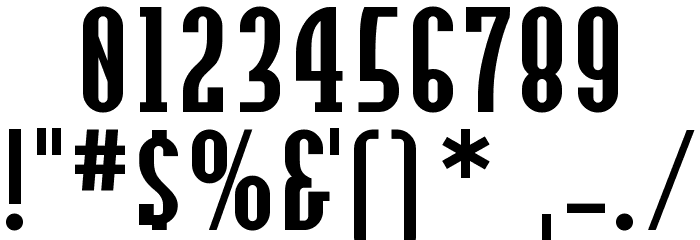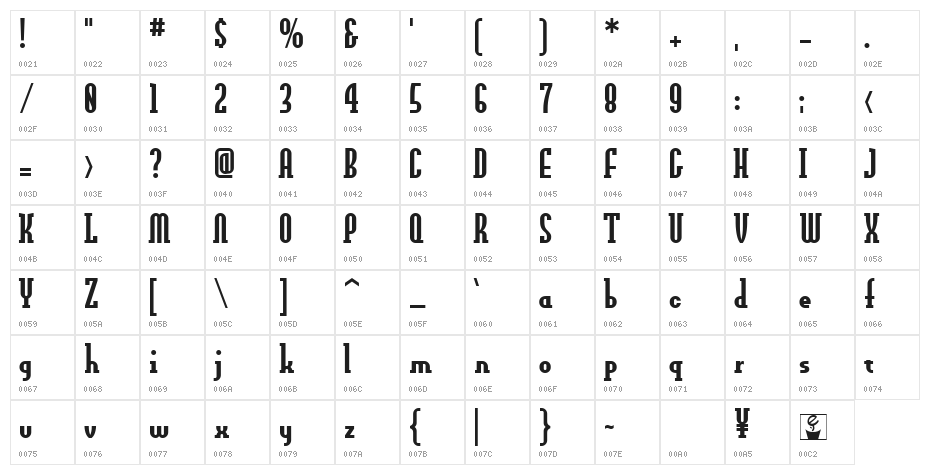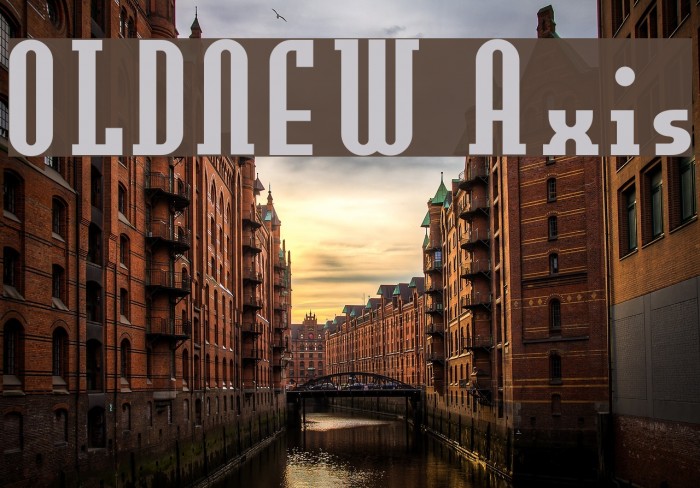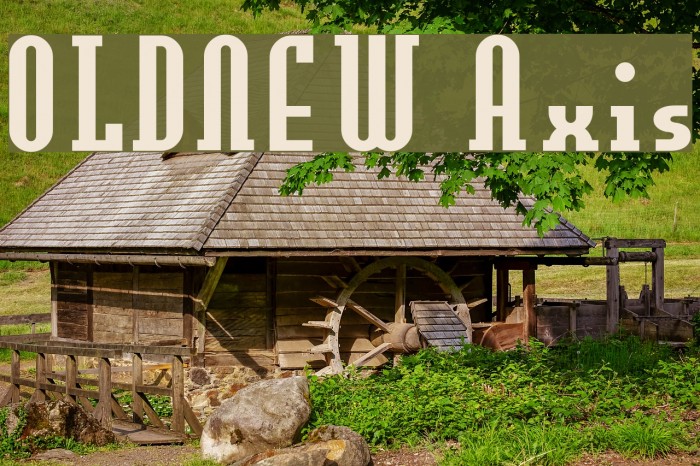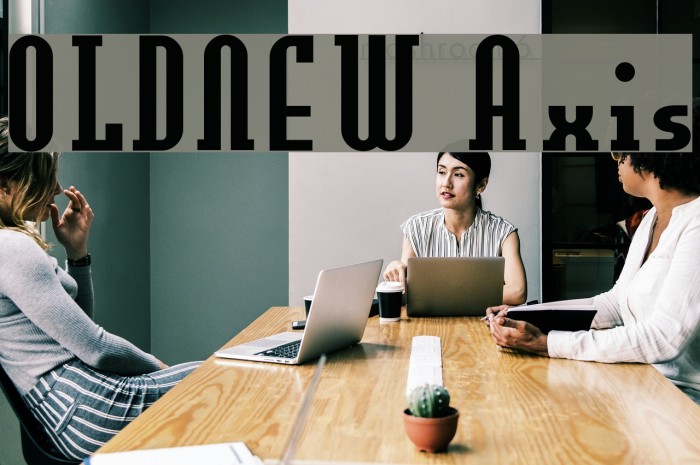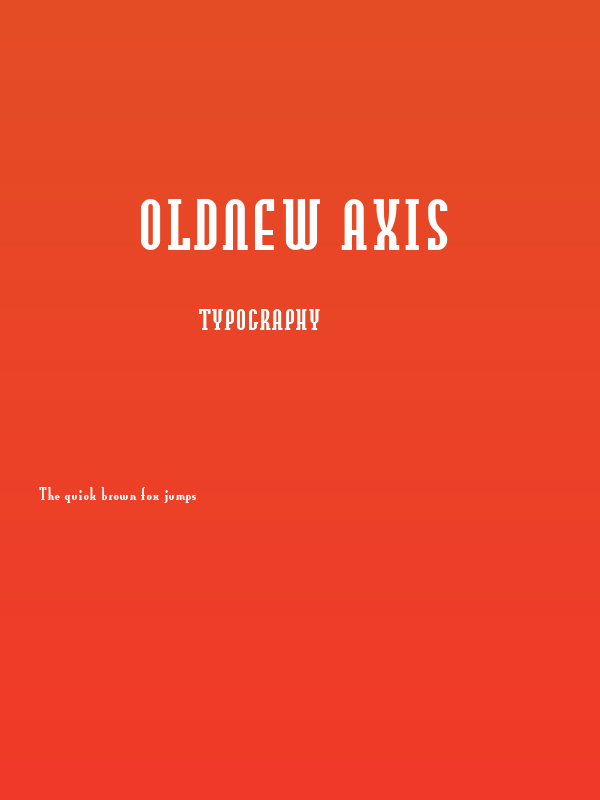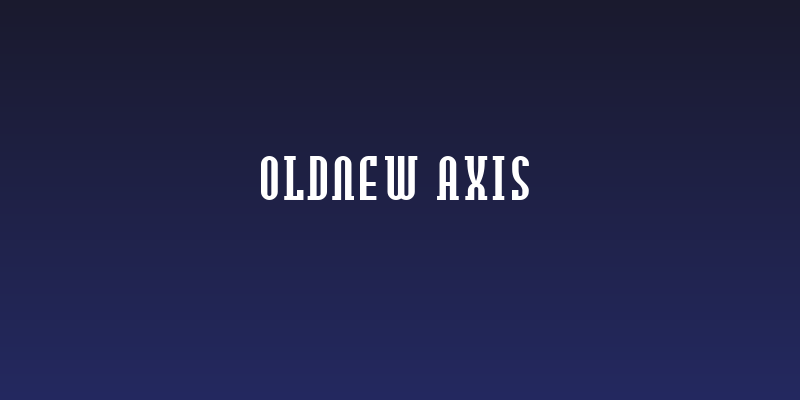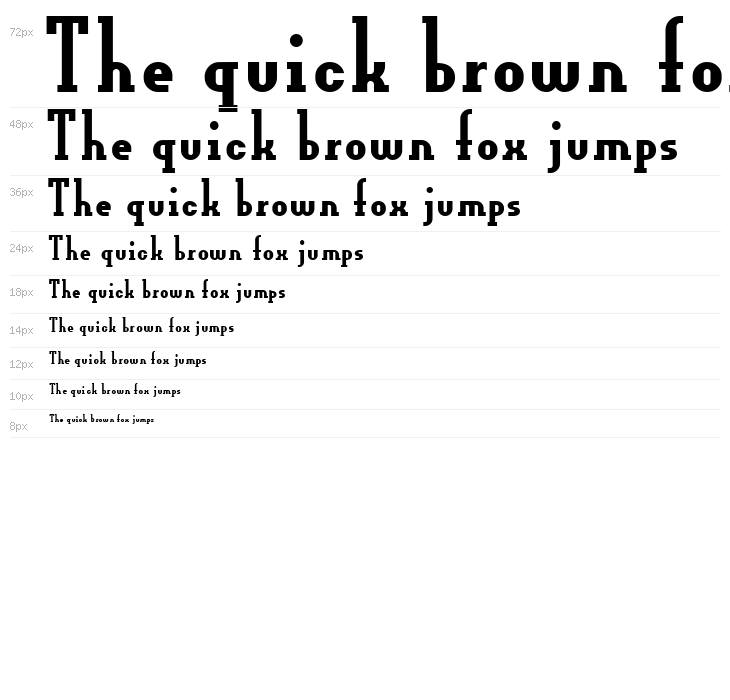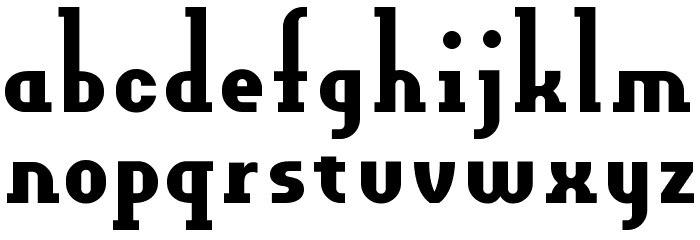
OLDNEW Axis Font
OLDNEW Axis Description
This font features a bold and striking design with a strong presence. The uppercase letters are tall and narrow, with a distinct geometric influence that gives them a modern edge. The lowercase letters maintain a consistent style, offering a cohesive look across different text sizes. Numbers are equally bold, ensuring readability and impact. Special characters are designed to match the overall aesthetic, making this font versatile for various applications. The clean lines and uniform stroke widths contribute to its contemporary appeal.
OLDNEW-AXIS UPPERCASE
OLDNEW-AXIS LOWERCASE
OLDNEW-AXIS OTHER CHARS